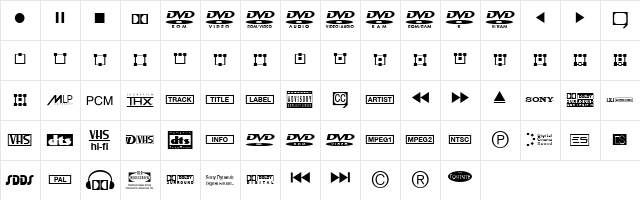
CombiSymbols DV Regular
Design Context for CombiSymbols DV Typeface
CombiSymbols DV takes a measured approach to typography — its balanced proportions and neutral character make it a reliable workhorse for both digital and print work.